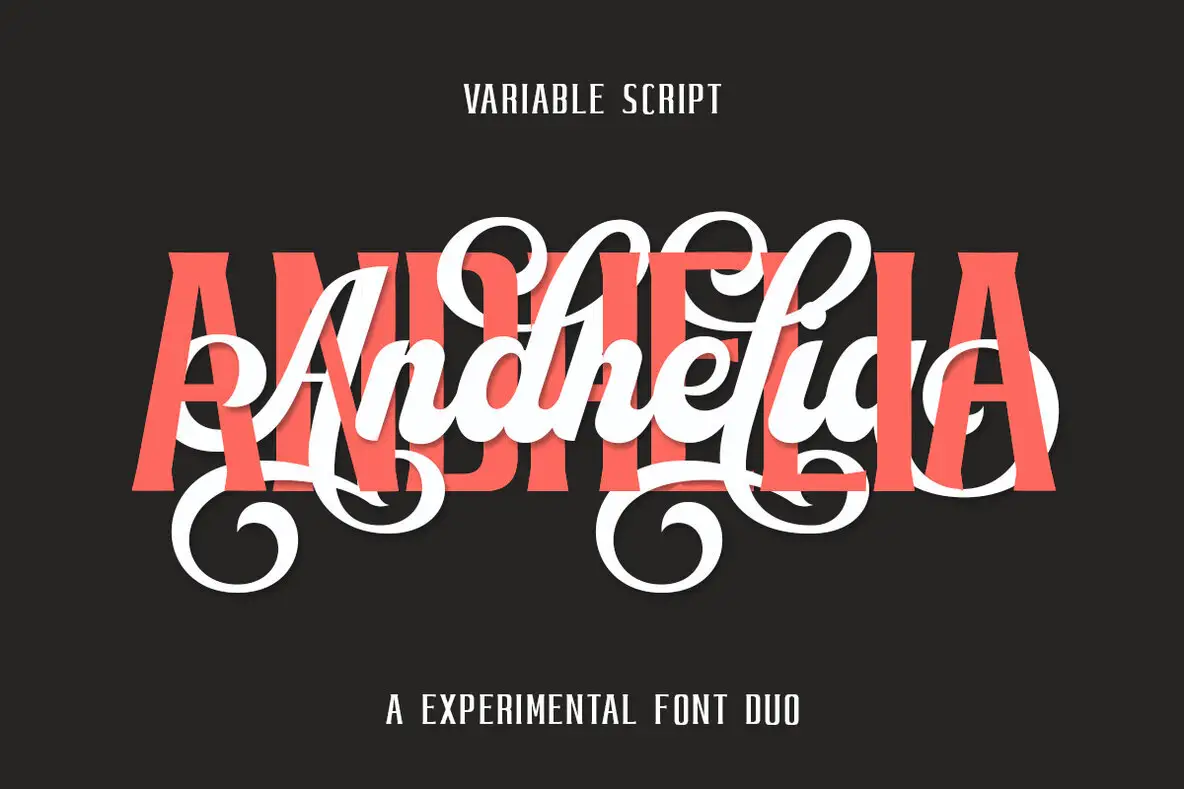
Andhelia Font
Discover the charm of Andhelia Script Duo, a beautifully crafted typeface that marries curvy elegance with balanced structure. Perfect for logos, badges, emblems, packaging, titles, posters, and more, this font family brings character and flair to any project. Whether you're designing a wedding invitation or a t-shirt, Andhelia offers the flexibility you need. Utilize the varied weights in Andhelia Script Duo to tailor your typography to the mood and message of your project. With alternate characters available through OpenType features, including Style Alternates, Style Sets, and Ligatures, this font family is fully compatible with software like Adobe Illustrator, Adobe Photoshop, and Adobe InDesign.Andhelia Script Duo - Font Family